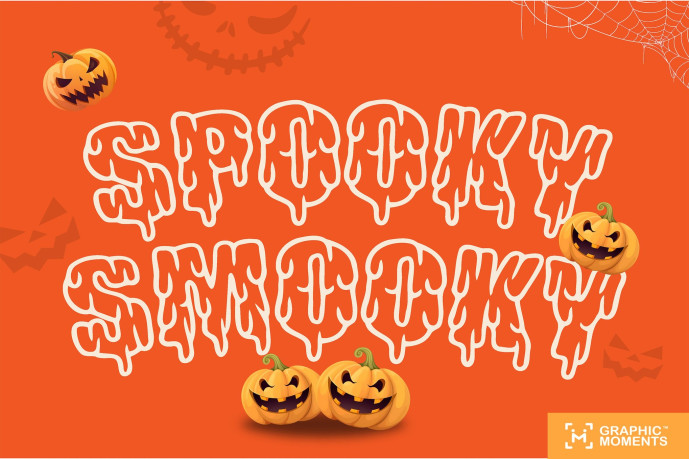
Spooky Smooky Font
Spooky Smooky Font is a playful yet terrifying Halloween font that dances between creepy charm and gothic horror. With its quirky curves and haunted letterforms, this font is perfect for scary movie posters, mystery thrillers, or witchy product packaging. Every stroke drips with spooky tension—summoning monsters, evil spirits, and a sense of deathly suspense.
Whether you’re designing a horror-themed invitation, a gothic thriller headline, or a witch-filled comic, Spooky Smooky brings just the right blend of creepy fun and dark elegance. From eerie Halloween nights to twisted tales of the unknown, this font transforms your design into a wicked visual story.